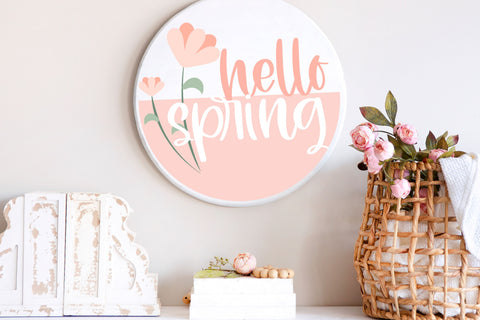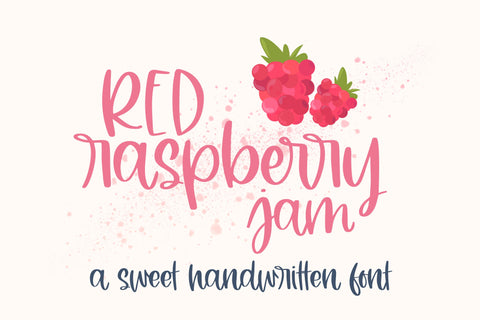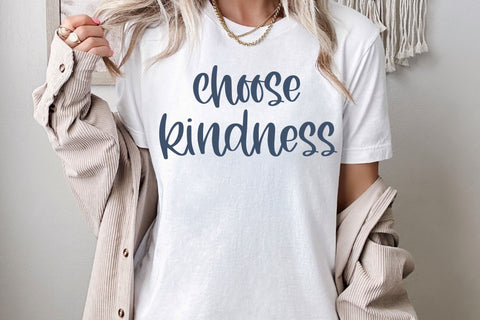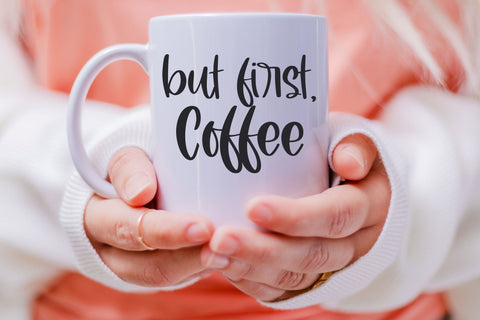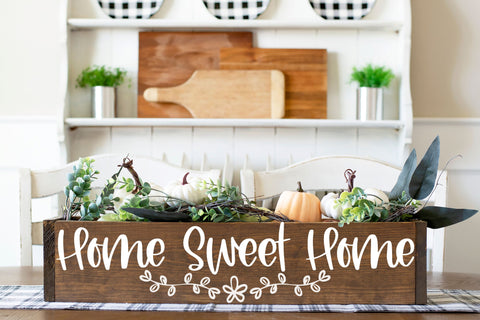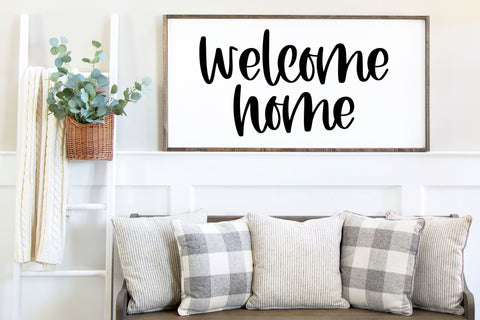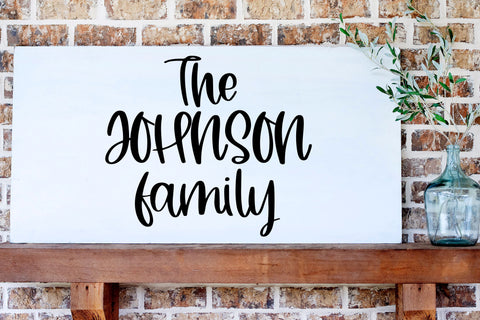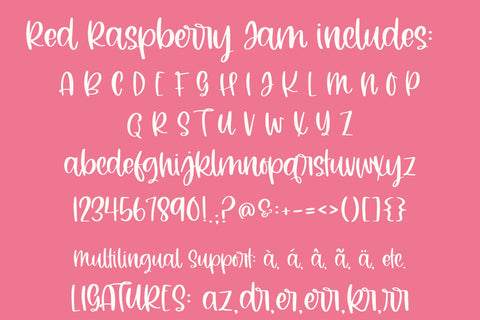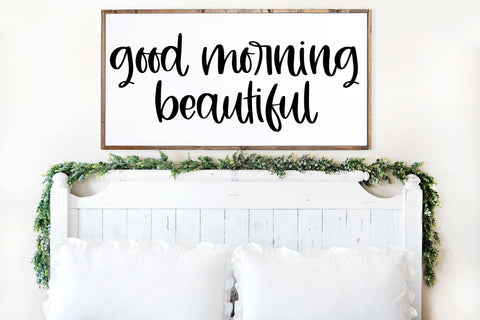
Red Raspberry Jam, A Cute Handwritten Font for Cricut, Farmhouse Handwriting
Introducing Red Raspberry Jam, our farmhouse handwritten font for Cricut and more, perfect for all your creative projects! With its elegant curves and smooth strokes, our cute script font brings a delightful touch to invitations, greeting cards, and personalized crafts. Our handwriting font is compatible with SVGs, Goodnotes, Procreate, and many other programs. Transform your designs into stunning works of art with this versatile cursive handwriting, the ultimate choice for anyone seeking a captivating and expressive typeface for their projects.